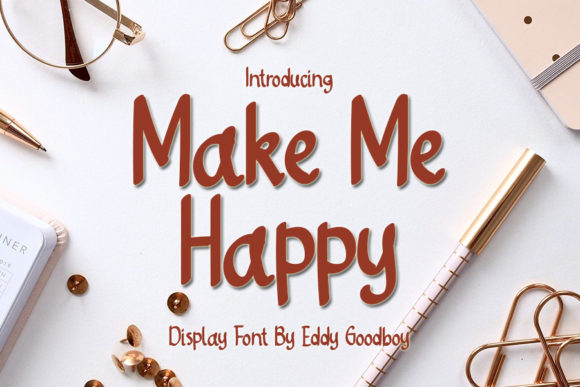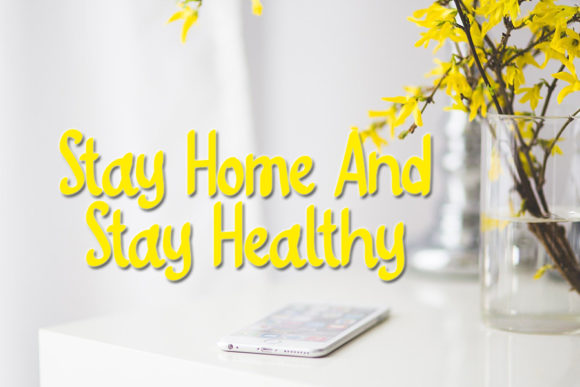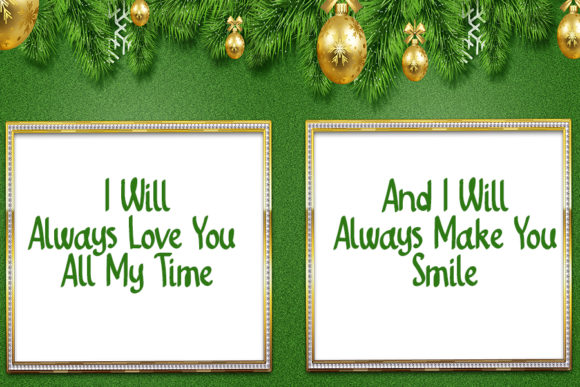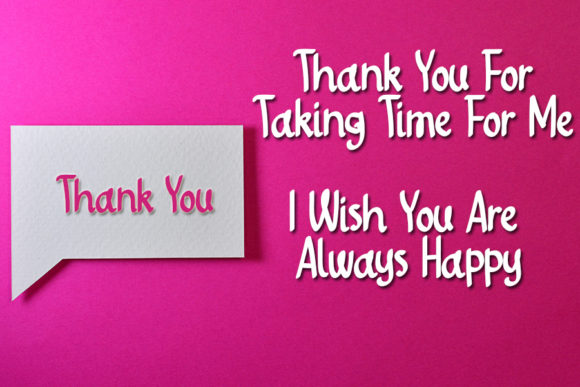
About Make Me Happy Font
“Make Me Happy” sounds like a delightful and classic handwritten font that has the power to add a touch of happiness to any crafting project. With its timeless charm, this font is the perfect choice for infusing a sense of joy and warmth into your creations.
By using “Make Me Happy” in your crafting projects, you can create a personalized and heartfelt look. Its classic handwritten style can evoke a sense of nostalgia and authenticity, making your projects feel more genuine and endearing.
This font can be an excellent addition to various crafting endeavors, such as handmade cards, scrapbooking, journaling, and DIY gifts. Whether you’re creating something for a loved one or expressing your creativity through crafting, “Make Me Happy” can be the perfect companion to add that personalized touch.
Its versatility allows it to complement various crafting themes and styles. Whether you’re working on cheerful and colorful designs or going for a more subtle and elegant look, “Make Me Happy” can adapt to your creative vision.
Incorporate this font into your crafting projects by experimenting with different sizes, colors, and placements. Let the font’s classic beauty shine in both headlines and small accents, adding a touch of happiness throughout your designs.
While letting your creativity flow, remember to maintain readability and legibility. Proper spacing and alignment between letters ensure that the text remains clear and easy to read, enhancing the overall appeal of your crafted pieces.
In conclusion, “Make Me Happy” is a classic handwritten font that can bring happiness and a personalized touch to your crafting projects. Its timeless charm and versatility make it an excellent choice for various creative endeavors. Embrace the joy of “Make Me Happy” and let it be the font that brightens up your crafting journey, adding a smile to the faces of those who receive your heartfelt creations.